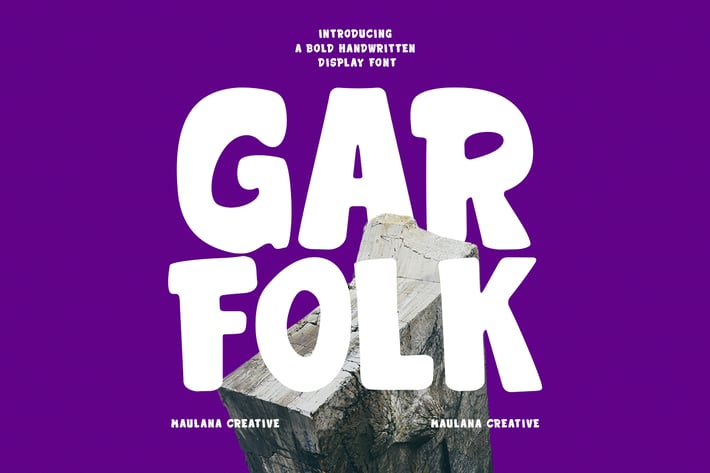
Garfolk Handwritten Display Font
Garfolk is a quirky handwritten display font. With bold contrast stroke, fun character with a bit of ligatures. To give you an extra creative work. Garfolk font support multilingual more than 100+ language. This font is good for logo design, Social media, Movie Titles, Books Titles, a short text even a long text letter and good for your secondary text font with sans or serif. Make a stunning work with Garfolk font.